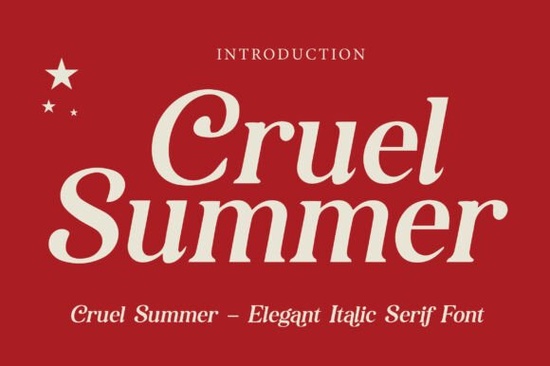
If you're looking for a serif font that balances timeless elegance with contemporary flair, Cruel Summer Font might be exactly what your next project needs. Designed with a refined italic slant and delicate serifs, it brings a touch of editorial sophistication to everything from fashion branding to wedding stationery. Whether you’re designing product labels, social media graphics, or print layouts, this font adds subtle luxury without overwhelming your message.
What makes Cruel Summer stand out among serif fonts?
Unlike traditional serifs that lean heavily into vintage or academic vibes, Cruel Summer merges classic structure with a modern, almost fashion-magazine aesthetic. Its letterforms are clean yet expressive think narrow proportions, graceful curves, and just enough contrast to feel intentional but not dramatic. This makes it especially useful for designers who want their work to feel current while still rooted in typographic tradition.
For small businesses crafting brand identities or print-on-demand sellers creating boutique-style apparel, the font’s understated confidence can help communicate quality and taste. It pairs beautifully with minimalist sans-serifs or even bolder display fonts like Slugger Union when you need contrast in a layout.
Where does Cruel Summer work best?
This font shines in contexts where tone matters as much as typography:
- Editorial design – Magazine headlines, feature spreads, or blog quote graphics
- Luxury branding – Perfume labels, skincare packaging, boutique logos
- Special event stationery – Wedding invitations, anniversary cards, or upscale menus
- Social content – Instagram quotes, Pinterest pins, or TikTok overlays that need a polished look
Because it’s an italic style by default, it’s not ideal for long blocks of body text but that’s not its purpose. Use it selectively for emphasis, titles, or short phrases where you want to convey refinement.
How does it compare to other modern serifs?
If you’ve explored Creative Fabrica’s serif collection, you might already know fonts like Cornella, which offers soft, rounded terminals and a warmer personality, or Mogerin, a more geometric take on the genre. Cruel Summer sits between them: less ornate than Cornella, more fluid than Mogerin, and distinctly editorial in rhythm.
Another option worth considering is Cruel Summer itself yes, it’s worth revisiting if you’re building a cohesive set. Since it’s part of Creative Fabrica’s curated library, you can often bundle it with complementary fonts or access alternate glyphs that enhance its versatility.
Tips for using Cruel Summer effectively
To get the most out of this font, keep these practical pointers in mind:
- Avoid overuse. Because of its stylized italic form, limit it to headings, pull quotes, or short taglines.
- Pair with neutral sans-serifs. Fonts like Helvetica, Inter, or even a simple system font let Cruel Summer take center stage without visual competition.
- Watch your tracking. The letters sit close together by design; slightly increasing letter-spacing (tracking) in larger sizes can improve readability and elegance.
- Use high-quality backgrounds. Textured paper, soft gradients, or muted solid colors complement its refined nature better than busy patterns.
Remember: typography isn’t just about picking a pretty font it’s about matching form to function. Cruel Summer works best when your message calls for subtlety, confidence, and a hint of modern glamour.